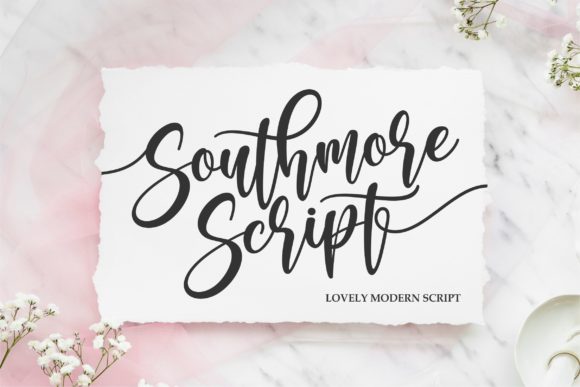
Southmore Font: A Delightful Choice for Creative Projects
If you're looking to add a touch of elegance and charm to your designs, Southmore is the perfect font to consider. This sweet and cursive handwritten font brings a sense of warmth and personality to any project, making it an excellent choice for both personal and professional use.
What Makes Southmore Stand Out?
Southmore is more than just a font; it's an experience. Its gentle curves and flowing lines mimic the natural movement of handwriting, giving your text a personal and authentic feel. Whether you're designing invitations, logos, or social media content, this font adds a unique flair that can't be replicated by standard typefaces.
One of the standout features of Southmore is its versatility. It works well in a variety of sizes and colors, making it suitable for everything from small text on a business card to large headings on a website. The font’s readability is also impressive, ensuring that even with its cursive style, the message remains clear and easy to understand.
Key Characteristics of Southmore
- Handwritten Style: Mimics natural handwriting for a personal touch.
- Soft Curves: Adds a romantic and elegant look to any design.
- High Readability: Despite its cursive nature, the font is easy to read.
- Versatile Use: Suitable for a wide range of design applications.
These characteristics make Southmore a great choice for designers who want to convey emotion and creativity through their work. Its gentle appearance can evoke feelings of joy, love, and nostalgia, which are especially useful in branding and marketing materials.
Practical Applications of Southmore
The beauty of Southmore lies in its ability to adapt to various contexts. Let’s explore some real-world scenarios where this font can shine:
Personal Projects
For personal use, Southmore is ideal for creating custom greeting cards, wedding invitations, or birthday messages. Its soft and romantic look makes it perfect for special occasions where a personal touch is essential. You could also use it for journaling or scrapbooking, adding a charming aesthetic to your creative work.
Professional and Commercial Use
In a professional setting, Southmore can be used to create eye-catching headlines for reports, presentations, or marketing collateral. Its unique style helps draw attention while maintaining professionalism. For instance, a boutique might use Southmore on its packaging or website to convey a sense of luxury and exclusivity.
Businesses in the hospitality industry can also benefit from using Southmore. Restaurants, cafes, and hotels can incorporate this font into their branding to create a warm and inviting atmosphere. It's particularly effective when paired with other fonts for contrast and visual interest.
Creative and Digital Design
Creative professionals such as graphic designers, illustrators, and web developers can take advantage of Southmore in digital projects. It works well for website headers, blog titles, or social media posts, adding a unique and engaging element to online content. The font's hand-drawn quality can enhance user experience by making the content feel more approachable and friendly.
When designing for print or digital media, it's important to consider how Southmore will appear at different sizes and resolutions. Testing the font in various formats ensures that it maintains its charm and legibility across all platforms.
Choosing the Right Font for Your Project
Selecting the right font involves more than just aesthetics—it requires considering usability, context, and audience. When choosing Southmore, ask yourself the following questions:
- Is the font appropriate for the message I'm trying to convey?
- Will it be readable in the intended size and format?
- Does it align with my brand identity or the tone of the project?
It's also helpful to pair Southmore with complementary fonts for balance. For example, using a sans-serif font for body text alongside Southmore for headings can create a harmonious and visually appealing layout.
Another consideration is licensing. Make sure you have the proper rights to use Southmore in commercial projects. Many fonts require specific licenses for certain uses, so it's always a good idea to review the terms before implementing them in your work.
Tips for Using Southmore Effectively
- Limit Usage: Avoid overusing Southmore in long paragraphs. Reserve it for headings, titles, or short phrases to maintain readability.
- Contrast with Other Fonts: Pair it with a clean, modern font for better visual hierarchy and balance.
- Experiment with Color: Try different color schemes to see how Southmore interacts with your design elements.
- Test Across Devices: Ensure the font looks good on screens of all sizes, including mobile devices.
By keeping these tips in mind, you can maximize the impact of Southmore in your designs while maintaining clarity and professionalism.
Southmore is more than just a font—it's a tool that can elevate your creative projects and help you connect with your audience on a deeper level. Whether you're a designer, marketer, or hobbyist, this elegant and versatile font offers endless possibilities for expression and innovation.